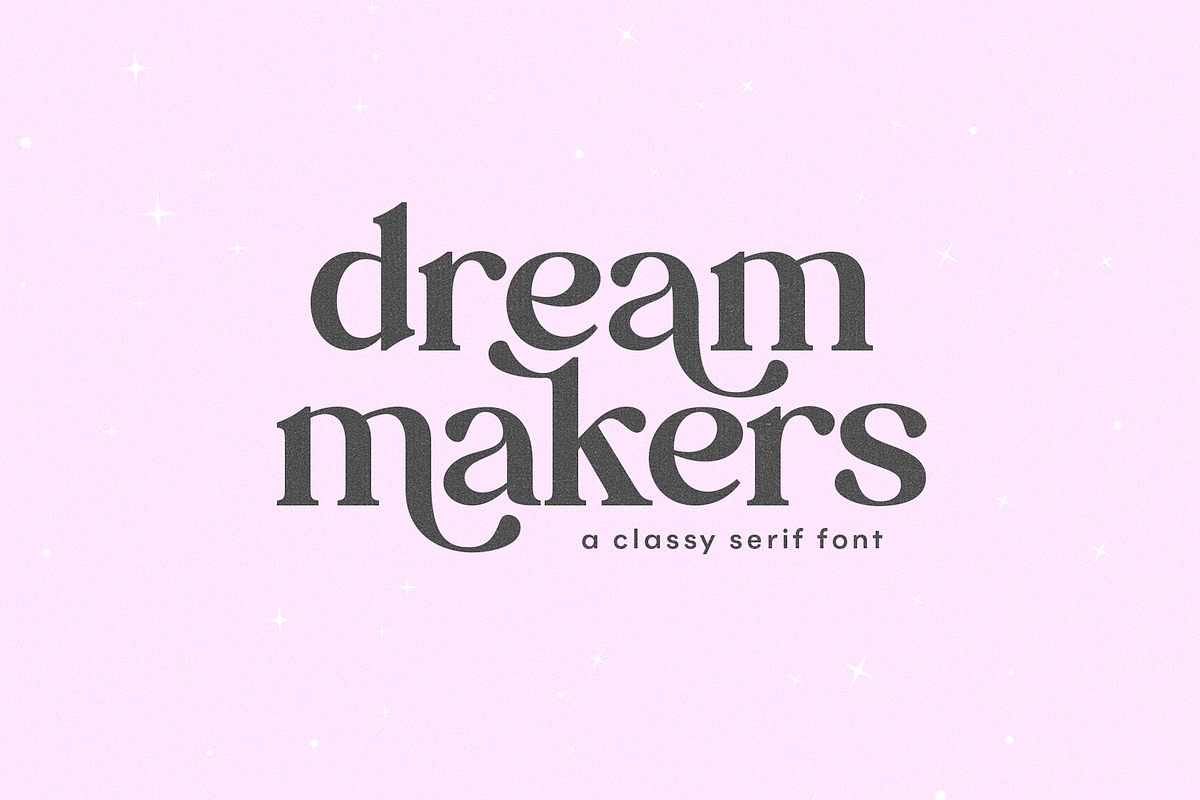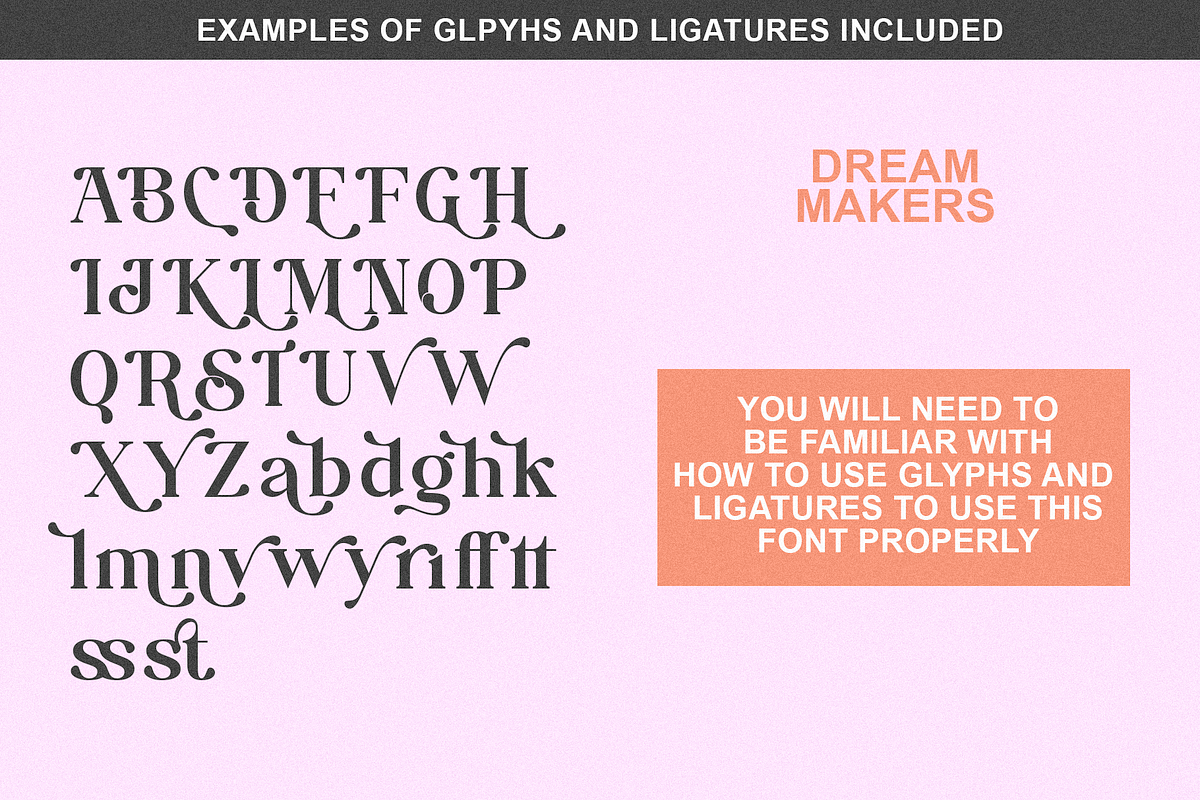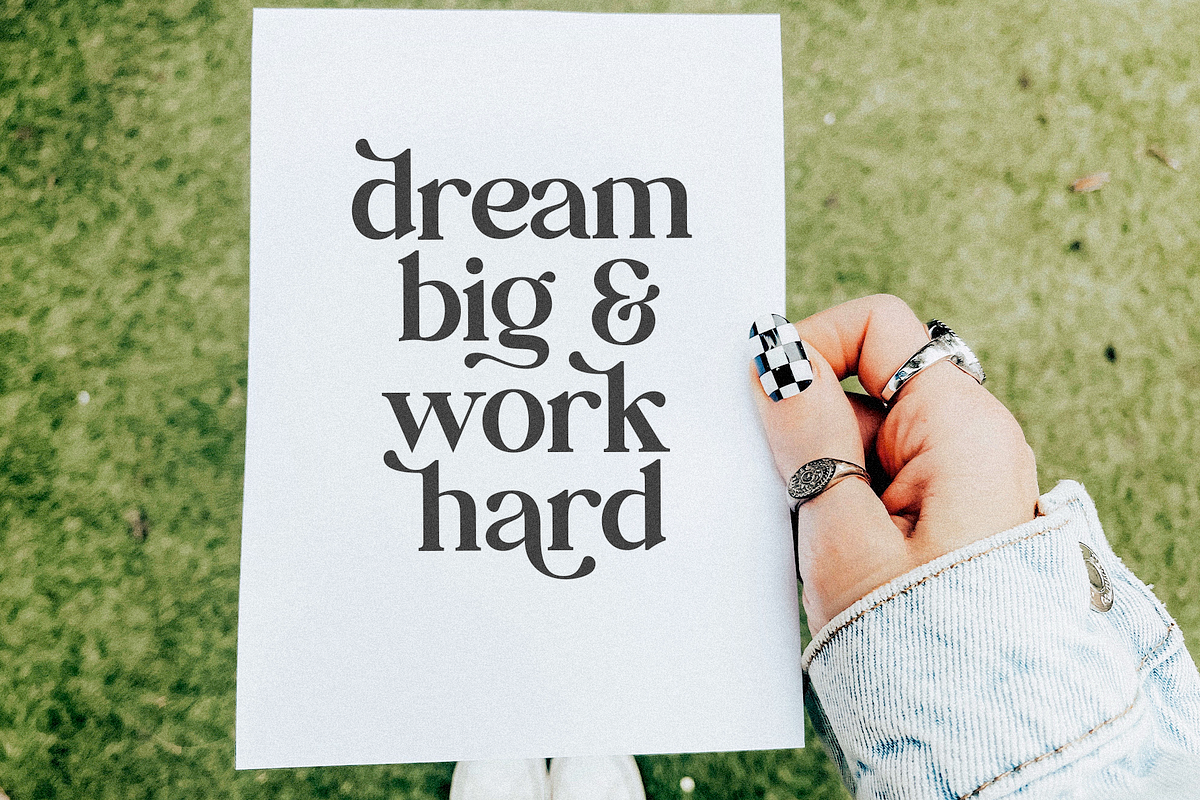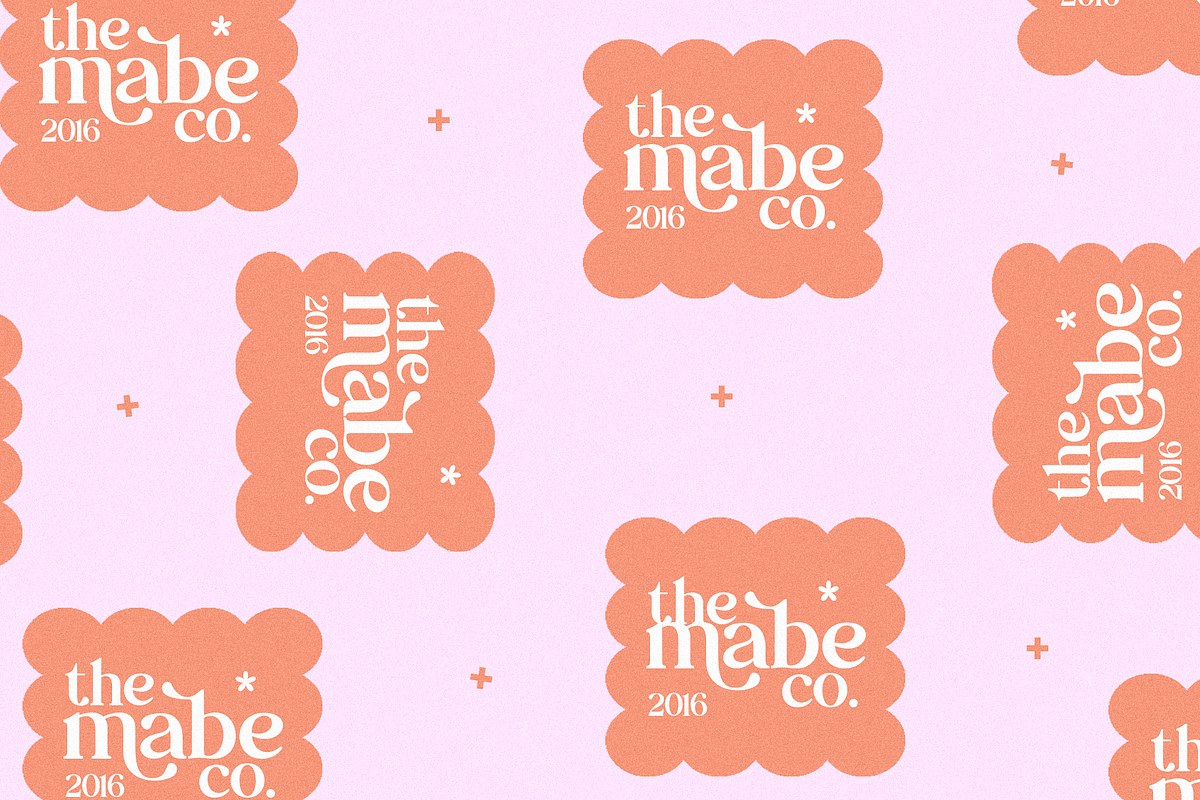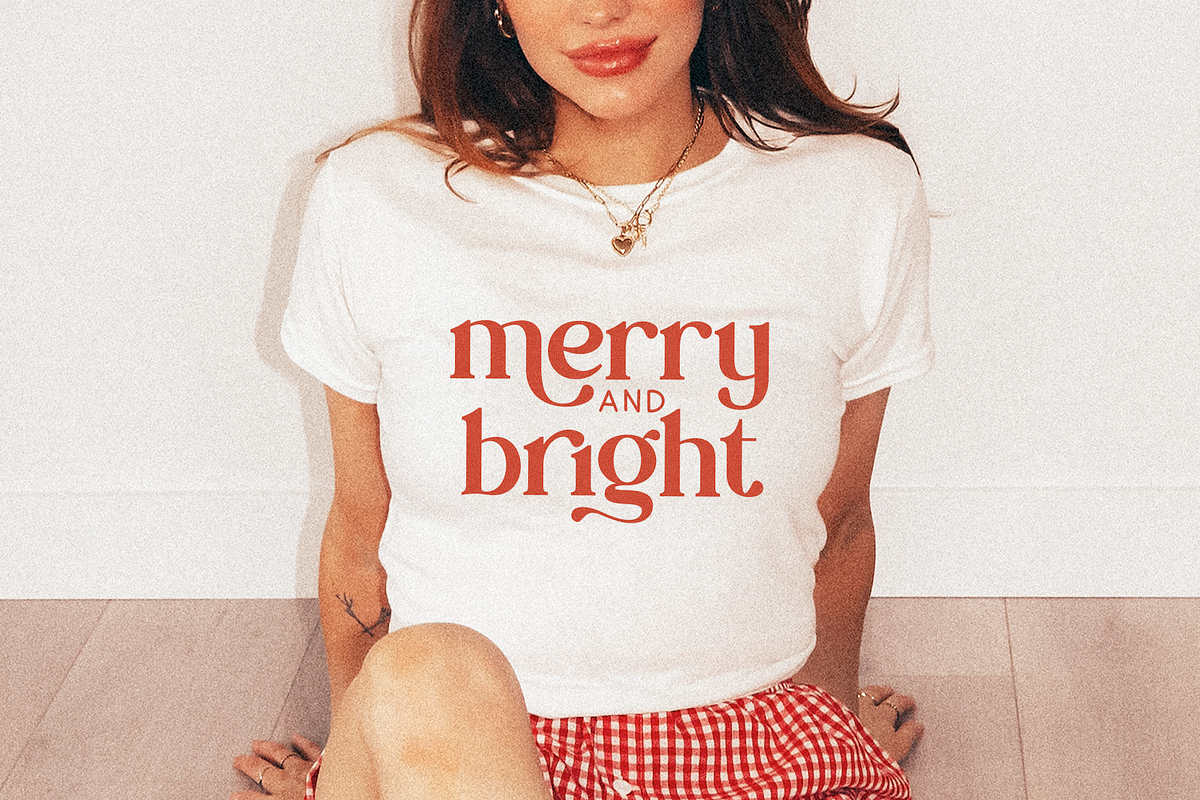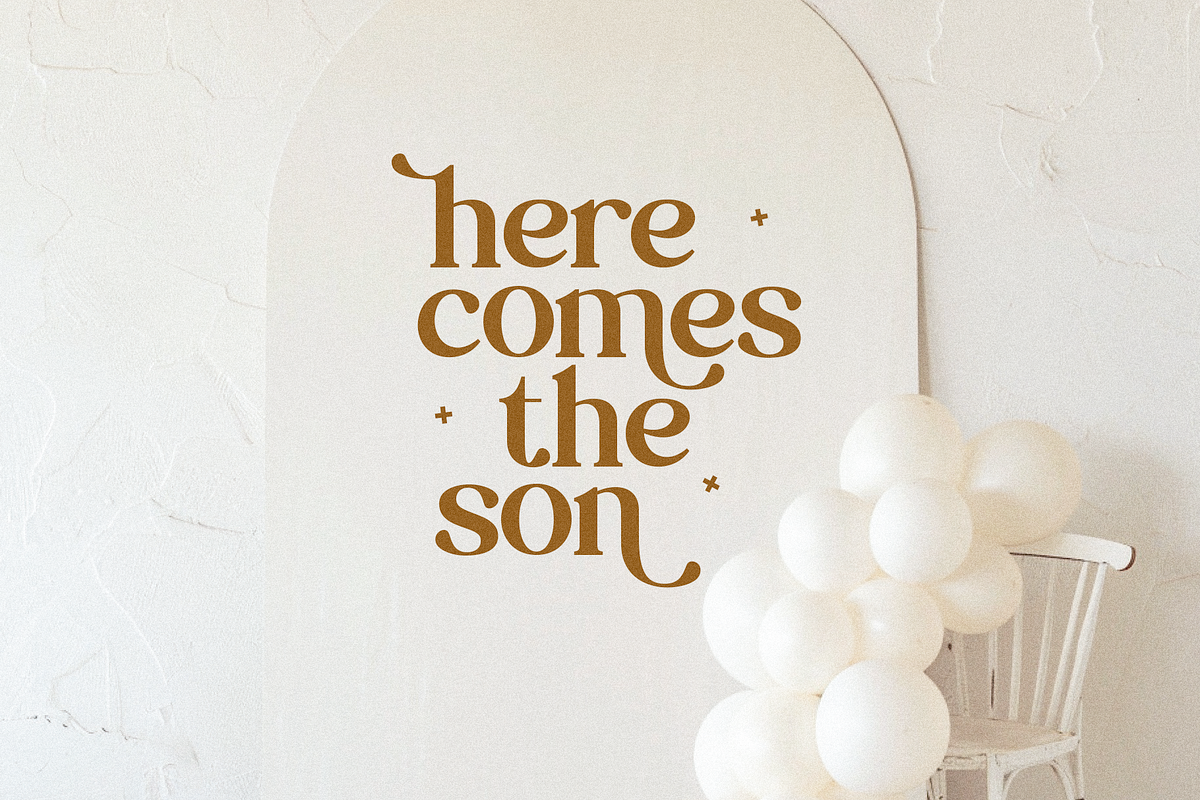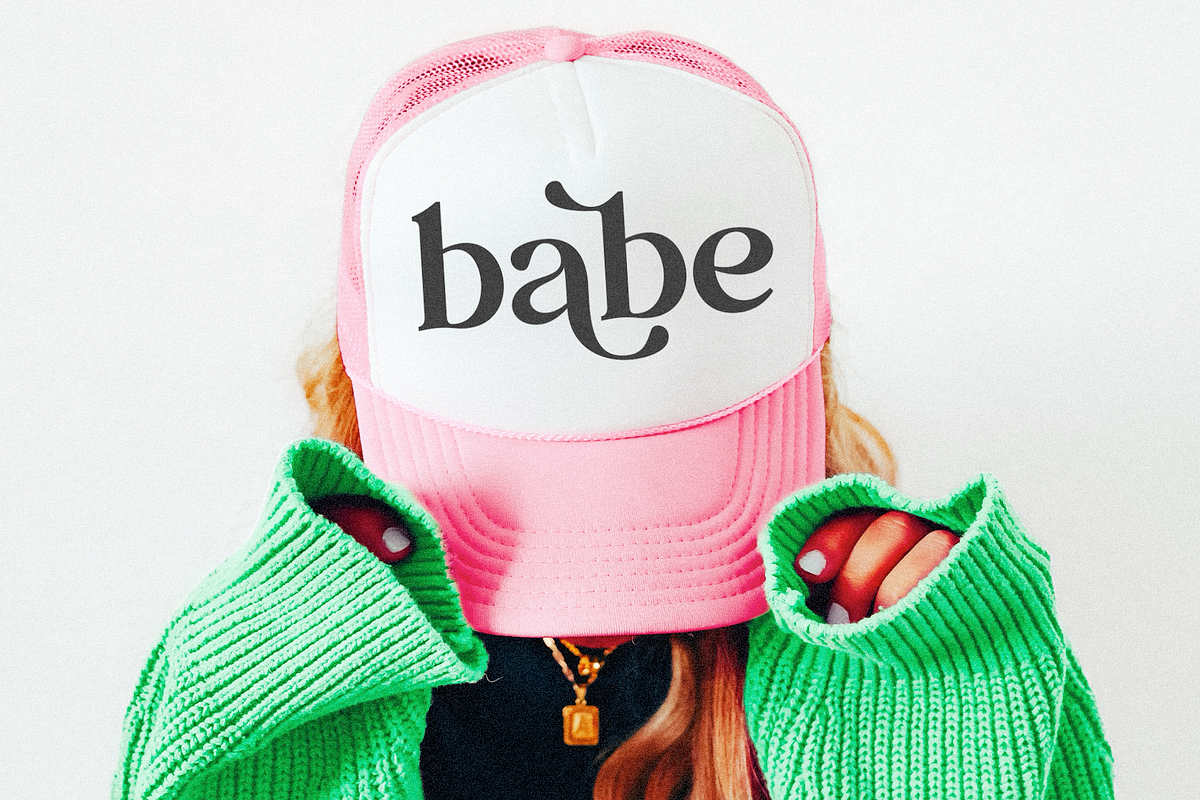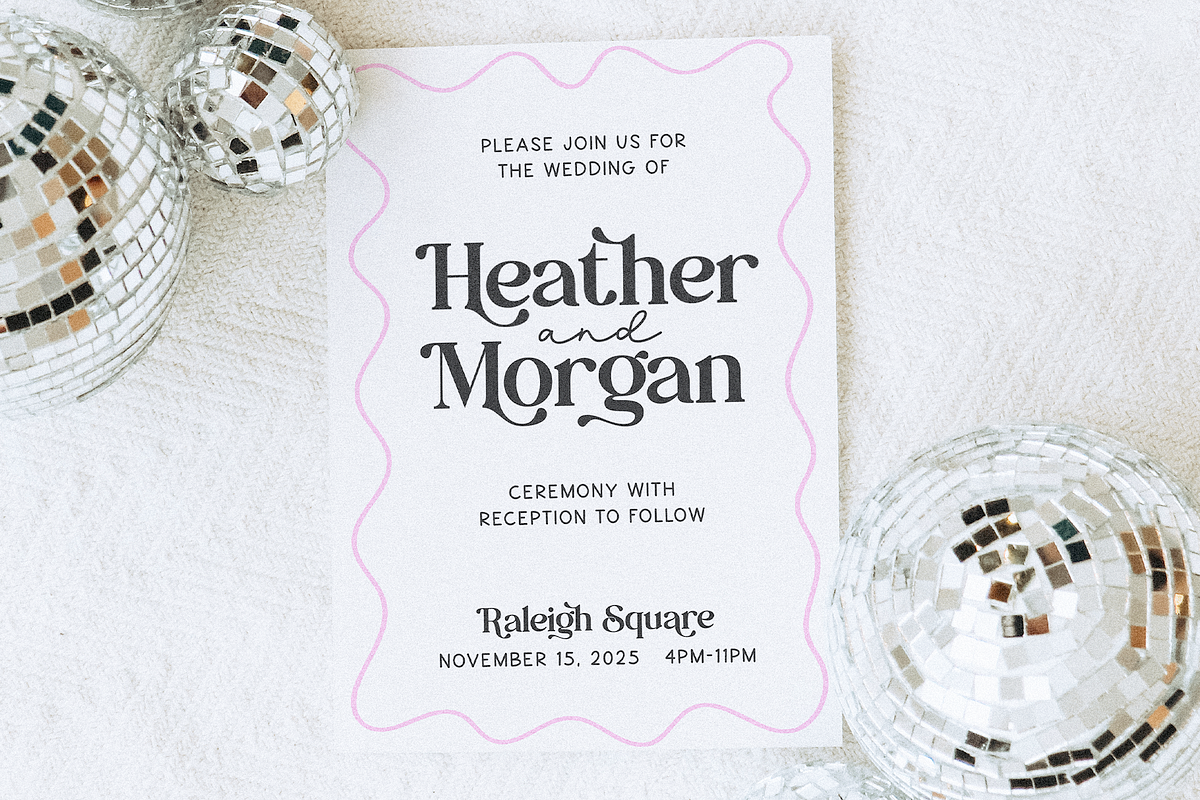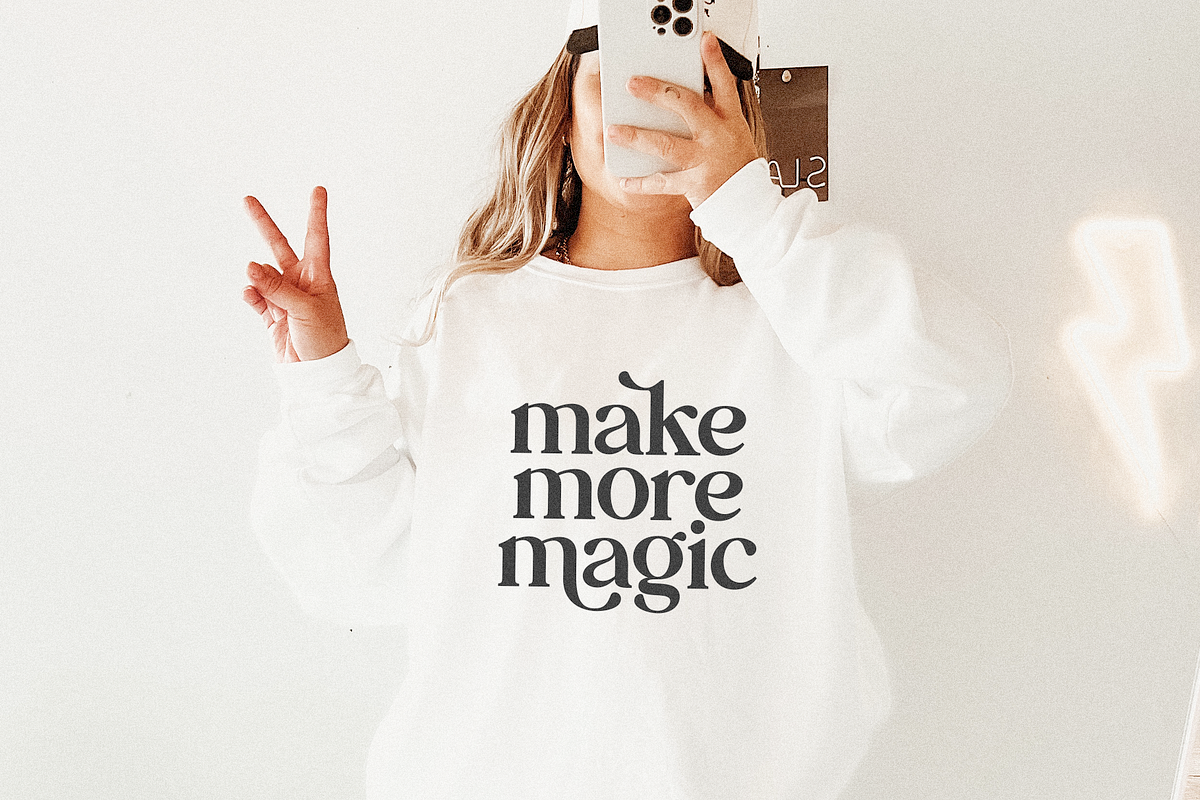
Dream Makers | Modern Serif Font
Dream Makers is a chic + modern serif font.
This font is perfect for branding, logos, social media, prints, stickers, shirts, svg files and more!
There are some fun stylistic alternates available to use with this font. These letters are embedded into the font file and easily accessible in programs such as photoshop and illustrator. PLEASE make sure you know how to access glyphs and ligatures in your design program before purchasing.